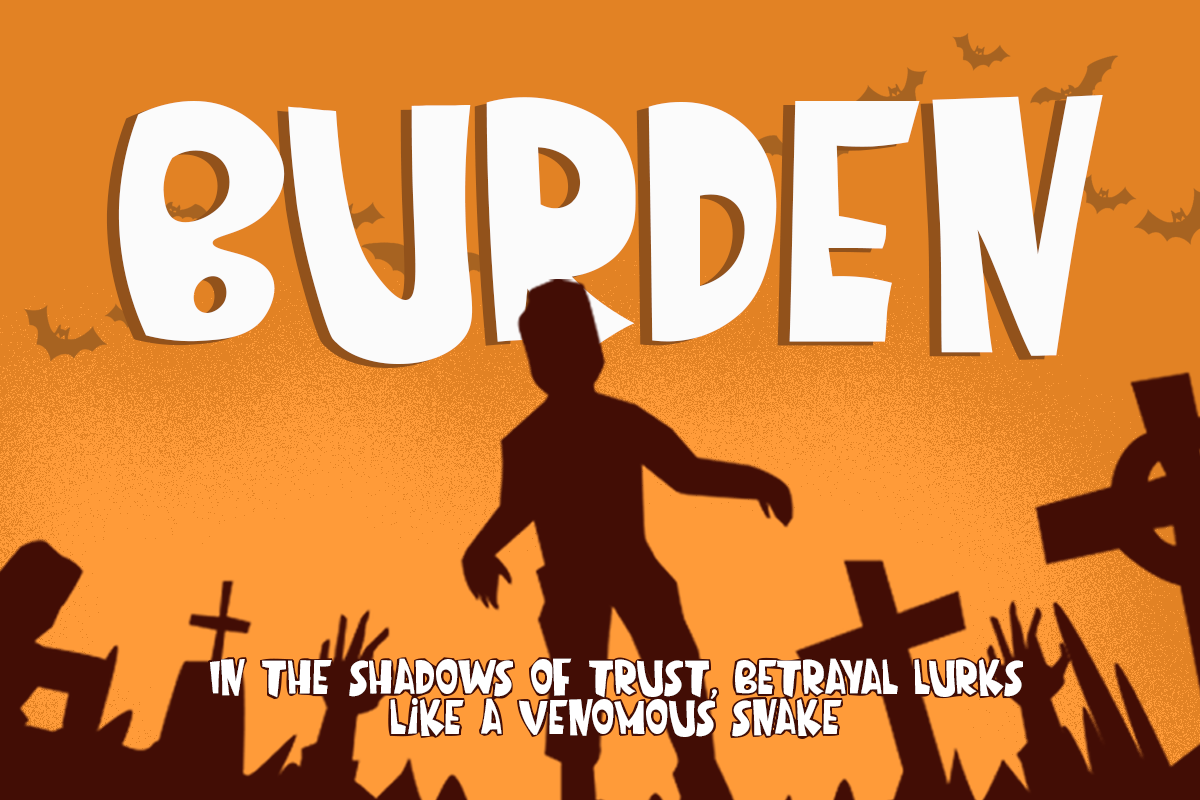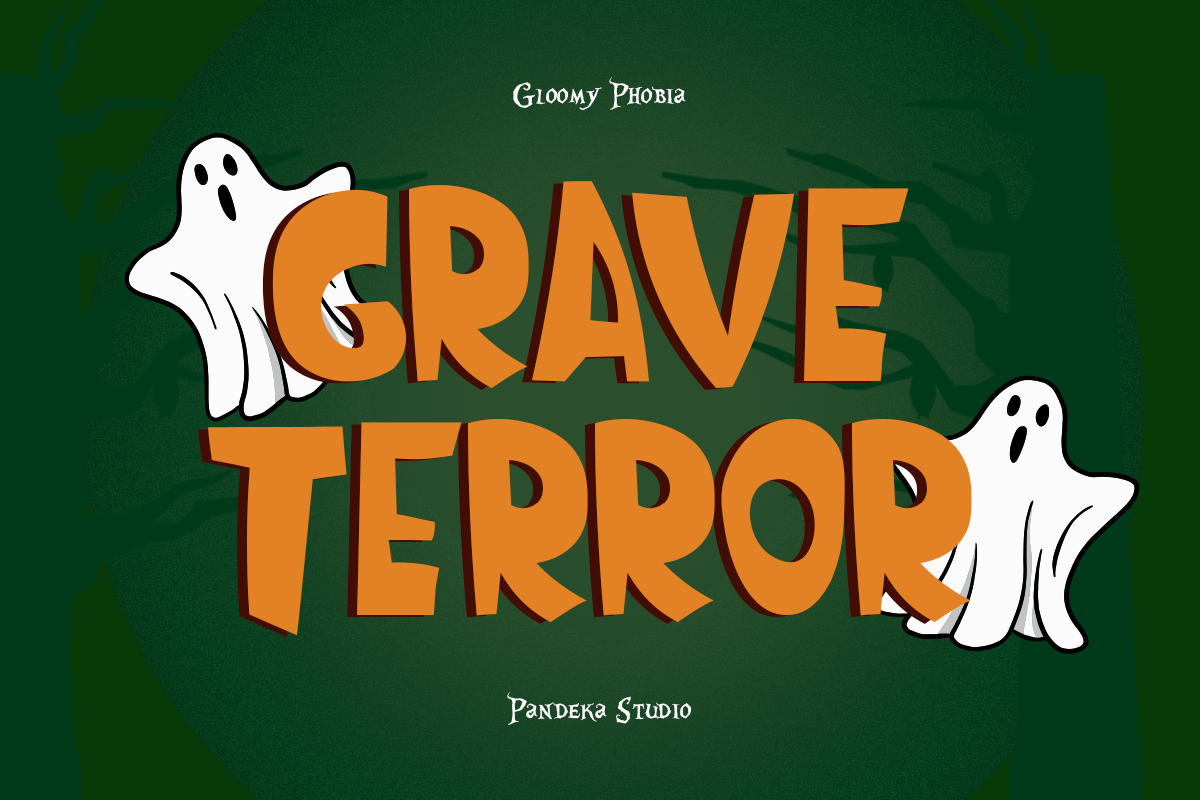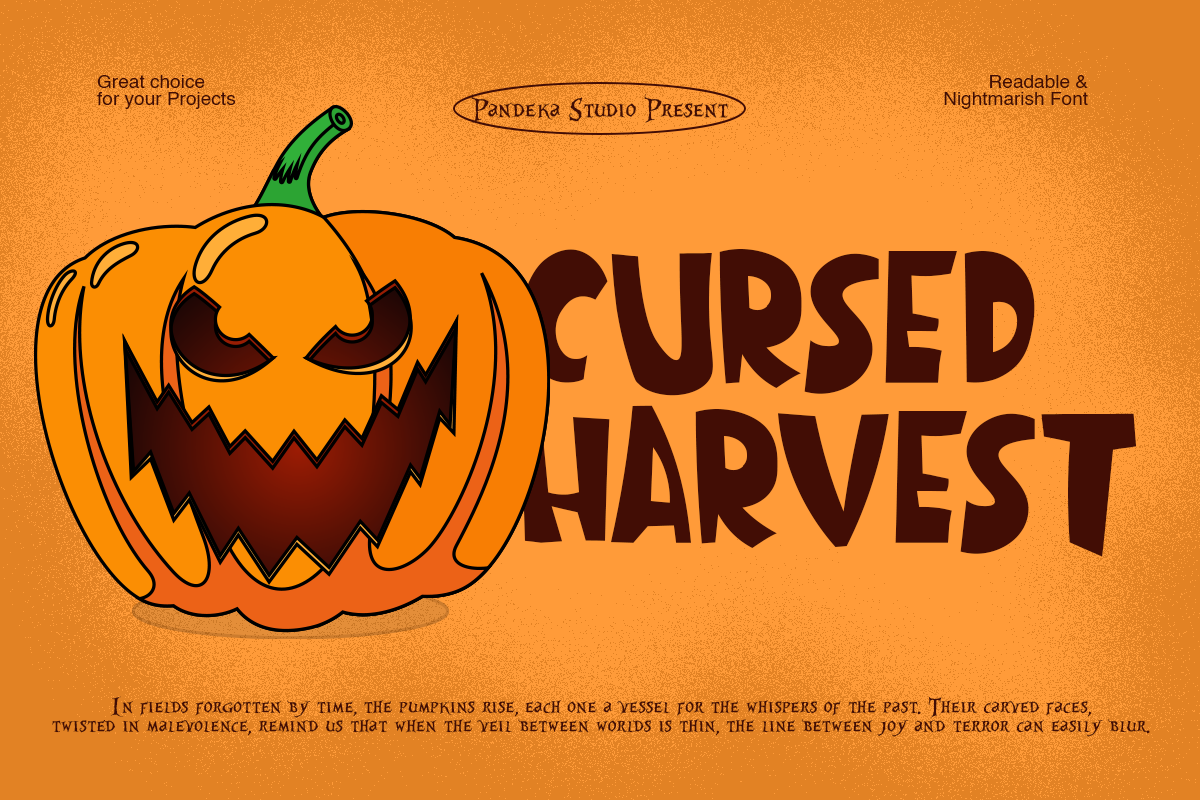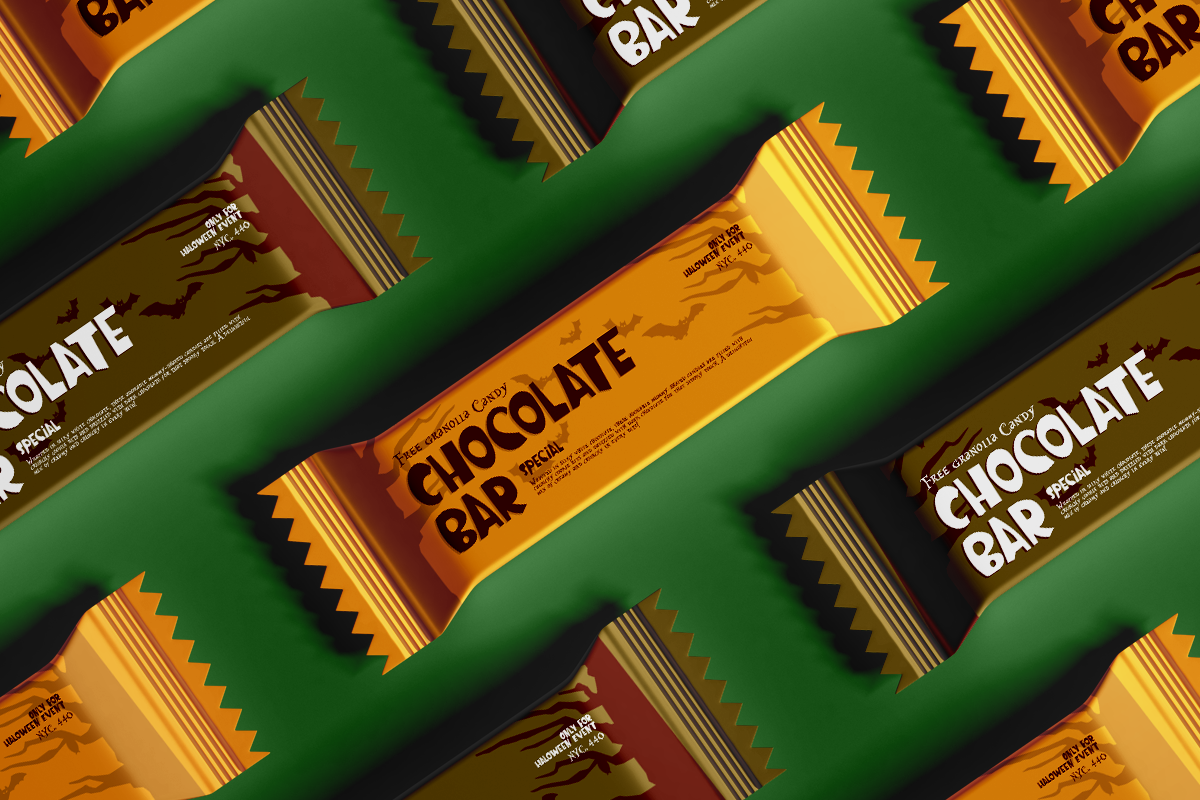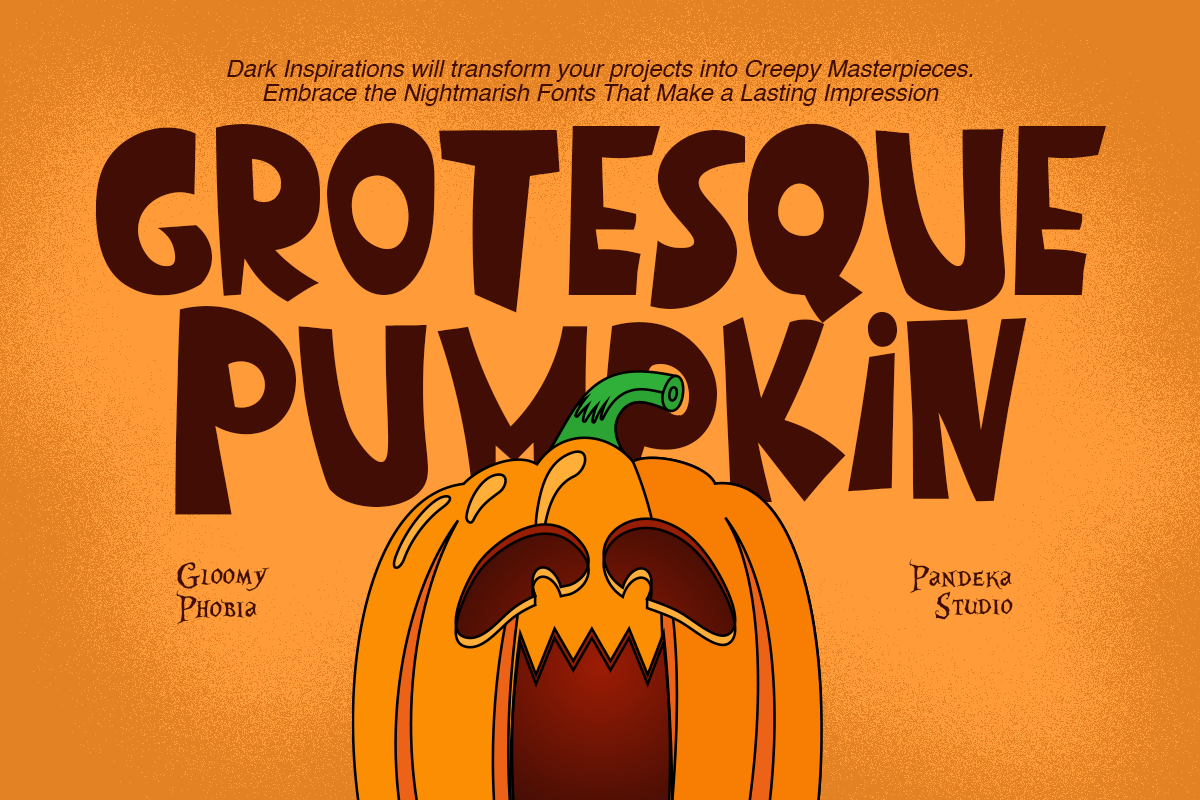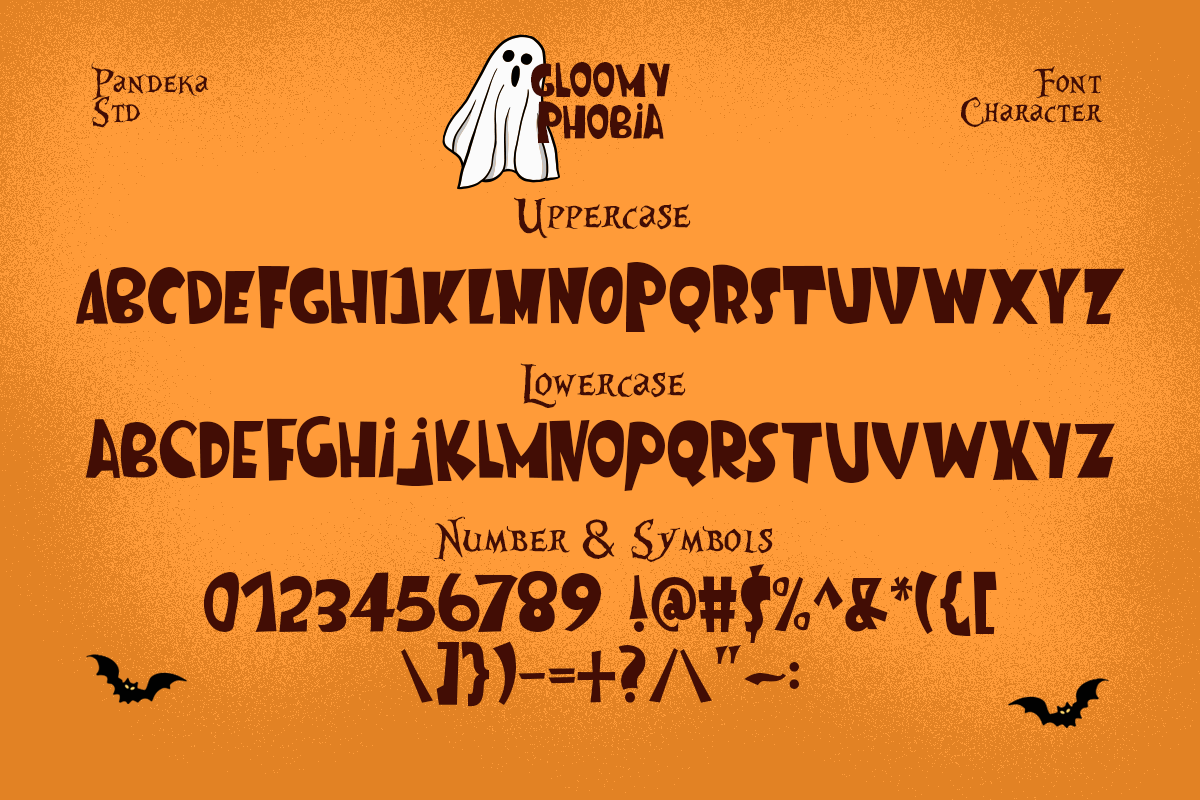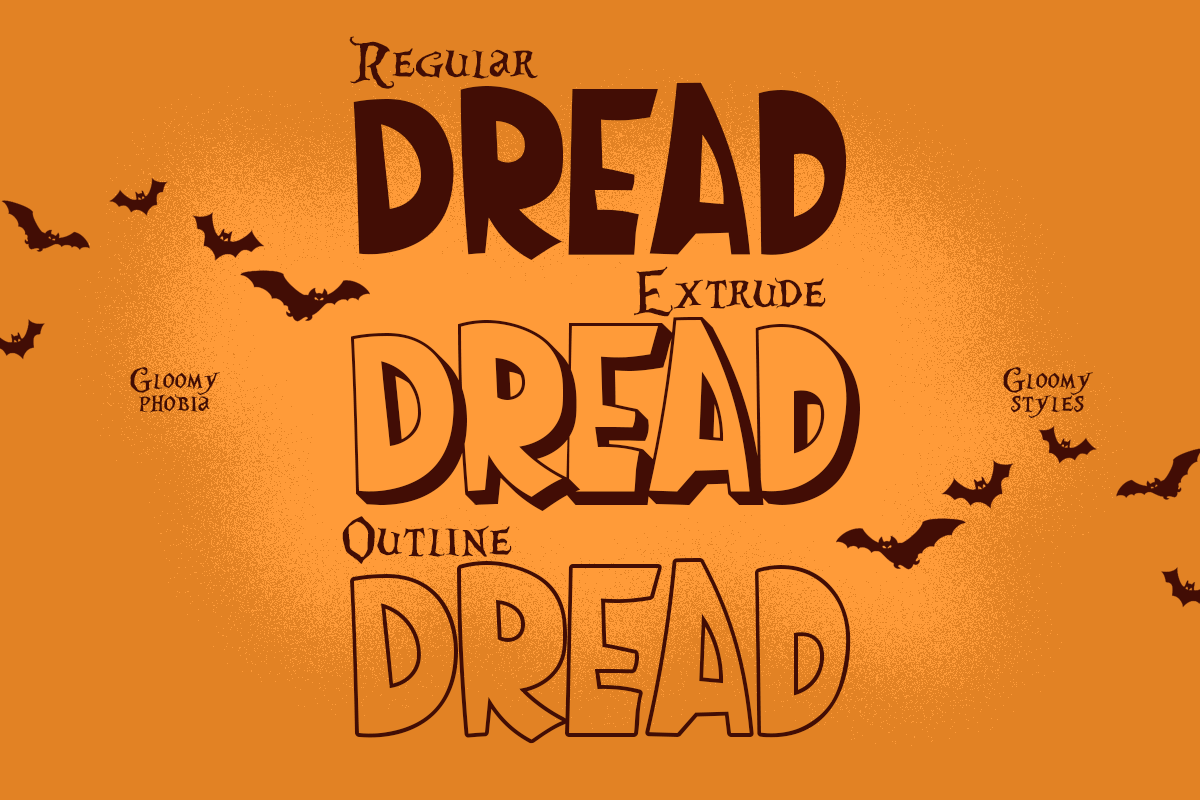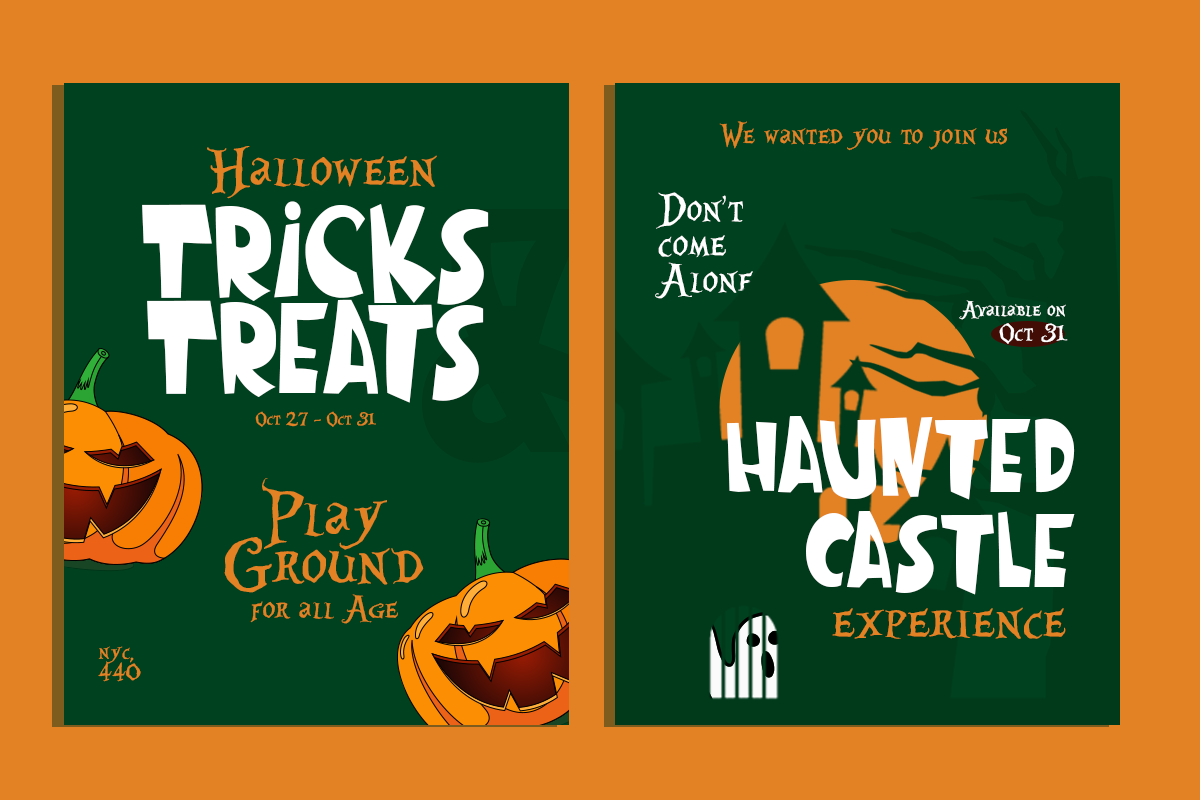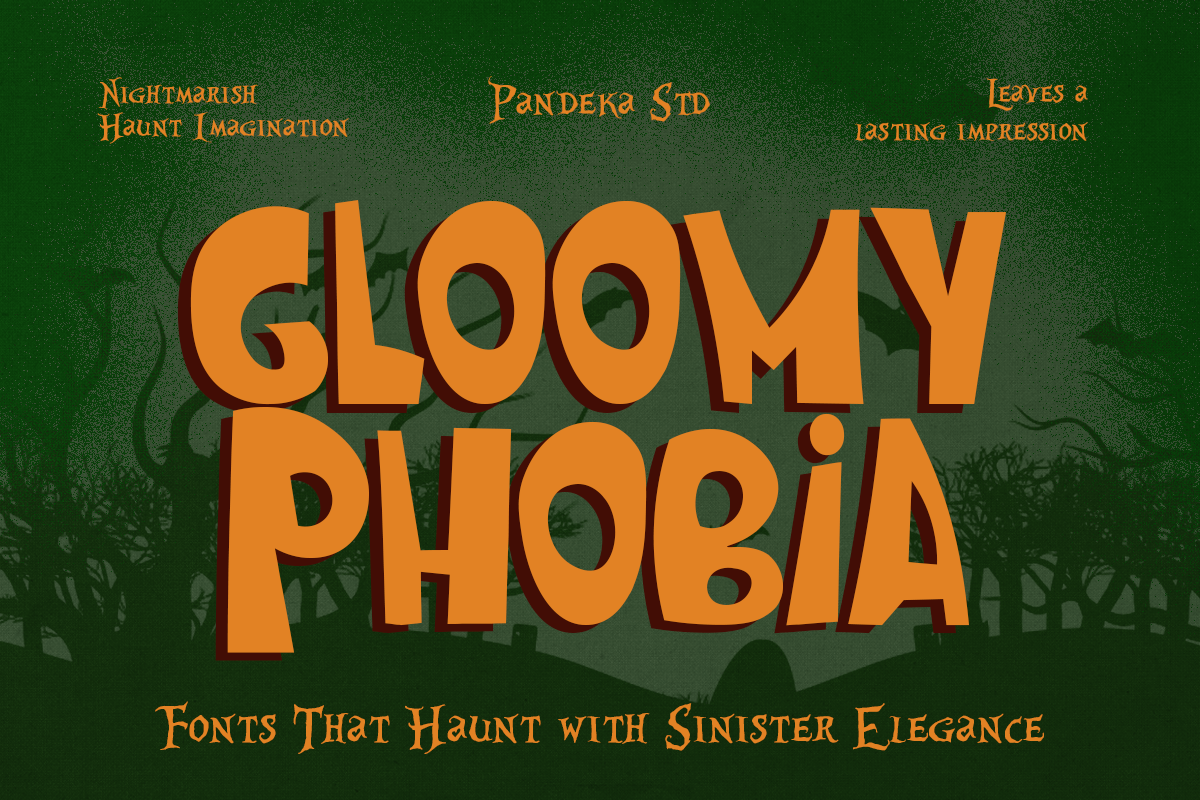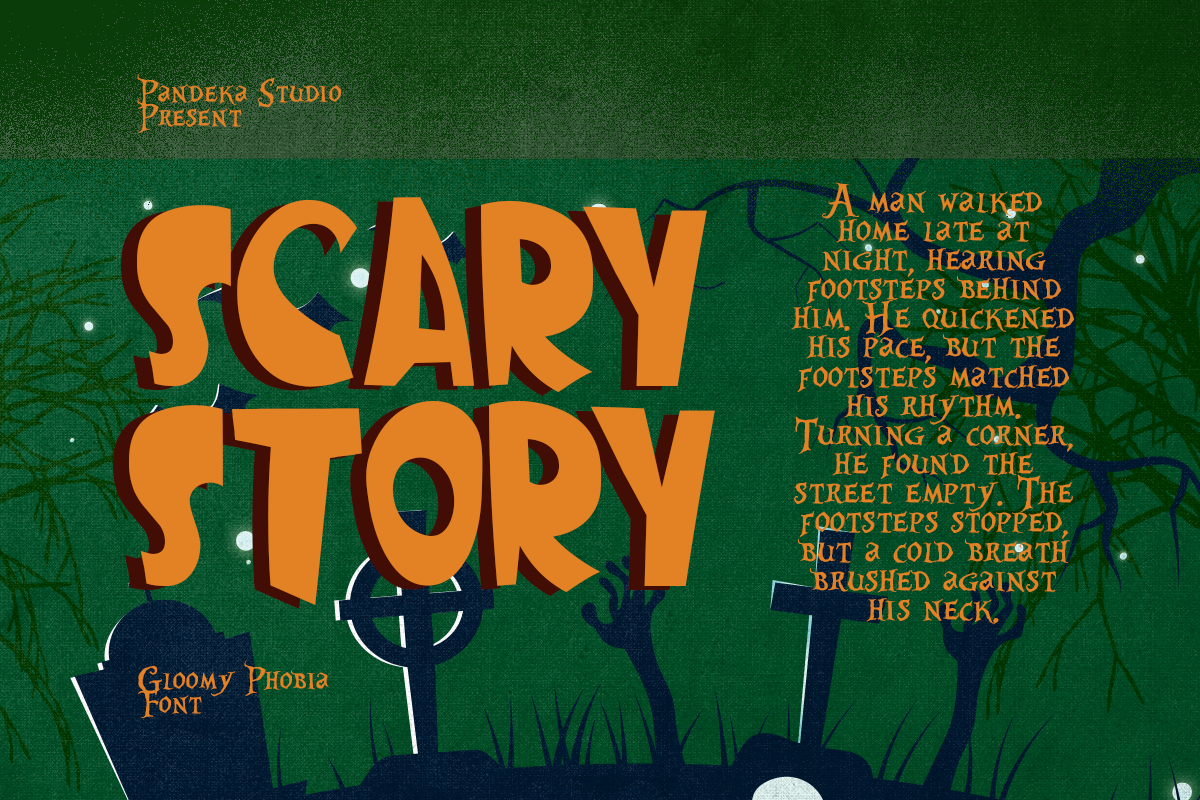
Gloomy Phobia - Horror Display Font
Introducing Gloomy Phobia - Horror Display Font
Gloomy Phobia is creeping towards you, imagine a desolate, eerie forest cloaked in fog, the distant crack of twigs, whispers echoing in the cold air
Gloomy Phobia comes in 3 haunting styles: Regular, Outline, and Extrude, giving your designs the extra depth and sinister atmosphere they need to evoke terror in your audience
- Regular, Outline and Extrude Style
- Unique letterforms